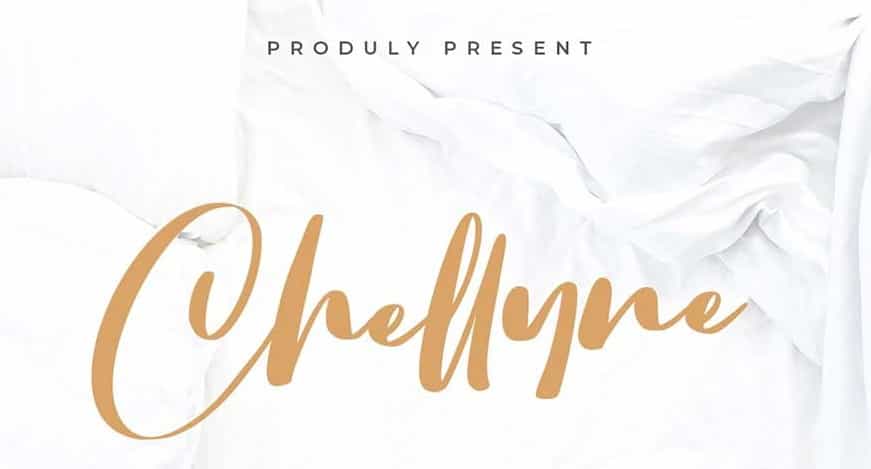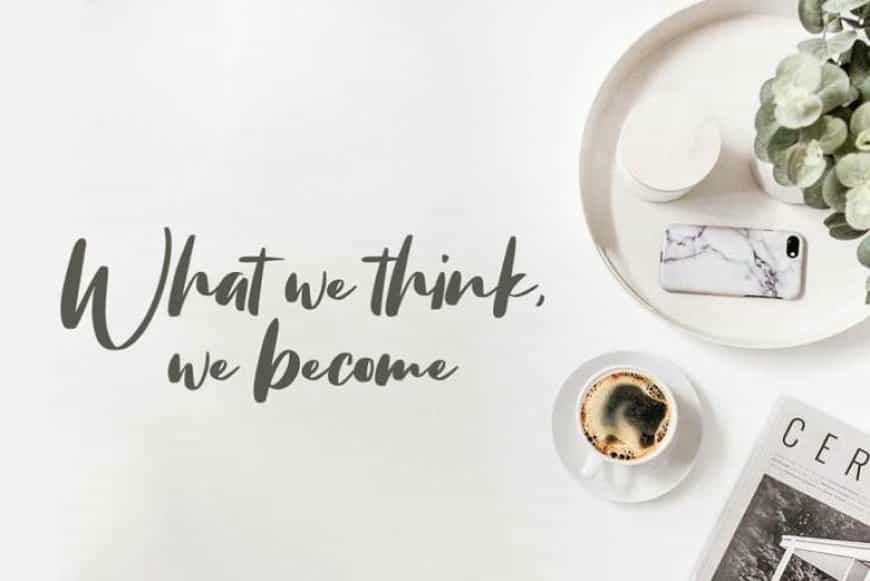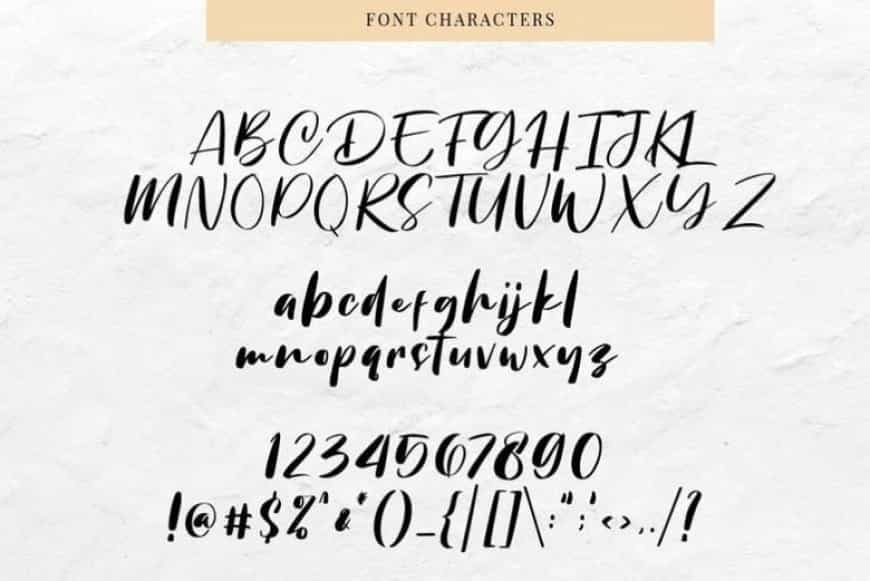
Chellyne is a sweet hand lettering handwritten font. It has an authentic feel – so fall in love with it, and use the font for beautiful wedding invitations, lovely stationary, interesting posts on social media or cute greeting cards.